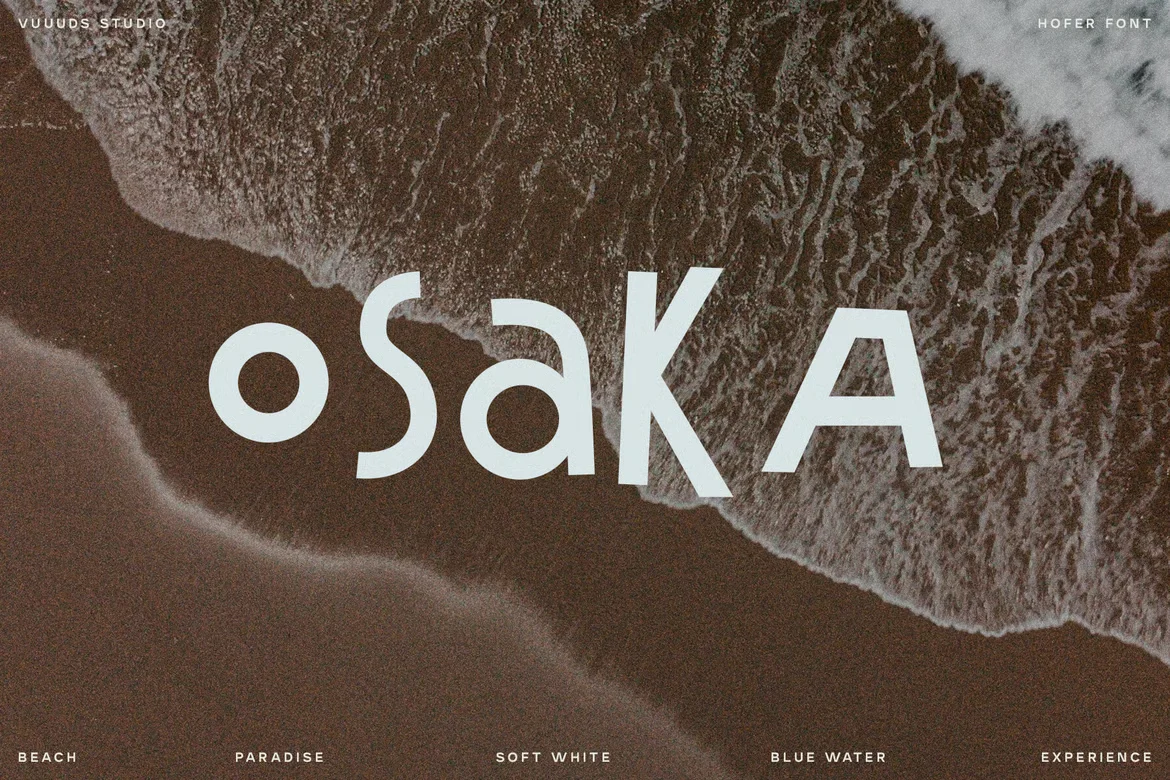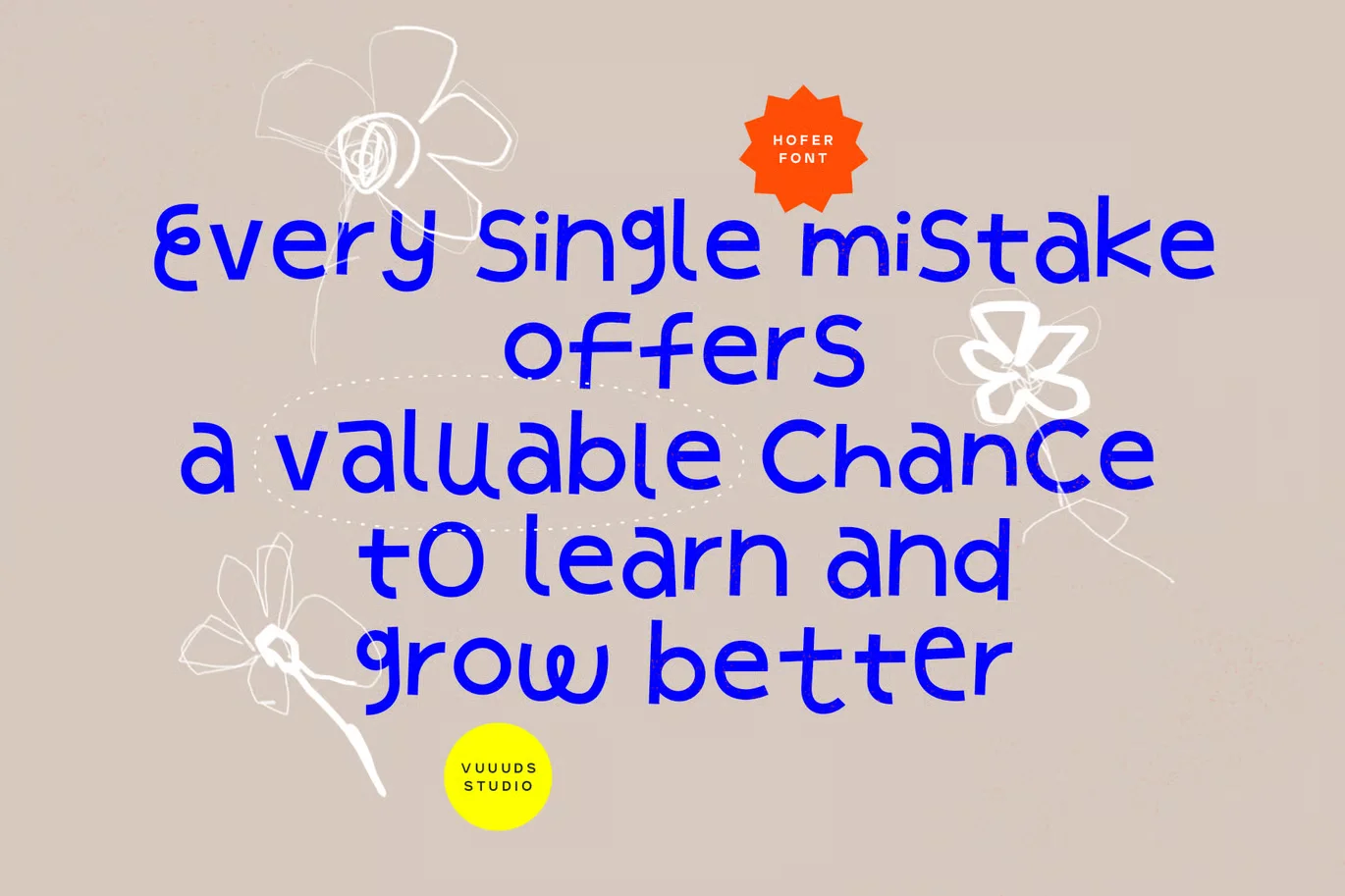
Hofer Font is a sans-serif typeface built to solve readability and consistency issues in branding and digital layouts. Designers often need a font that stays clear across websites, UI design, and print materials while keeping a neutral, professional tone for logos and interfaces.
Hofer Font belongs to the sans-serif category, with simple letterforms and low stroke contrast. The characters use open counters, straight stems, and balanced spacing, which supports legibility on screens and in print. This structure makes it suitable for both headings and short body text. Hofer Font typically avoids decorative elements like swashes or heavy curves, focusing instead on clarity and alignment.